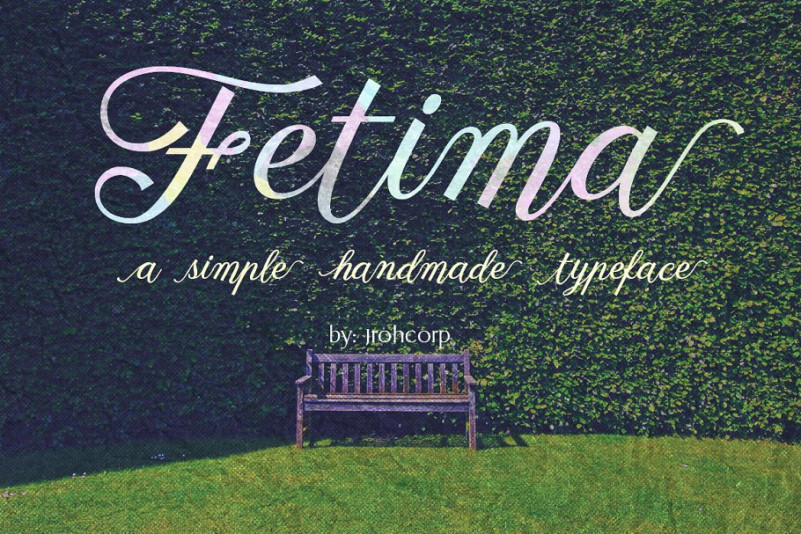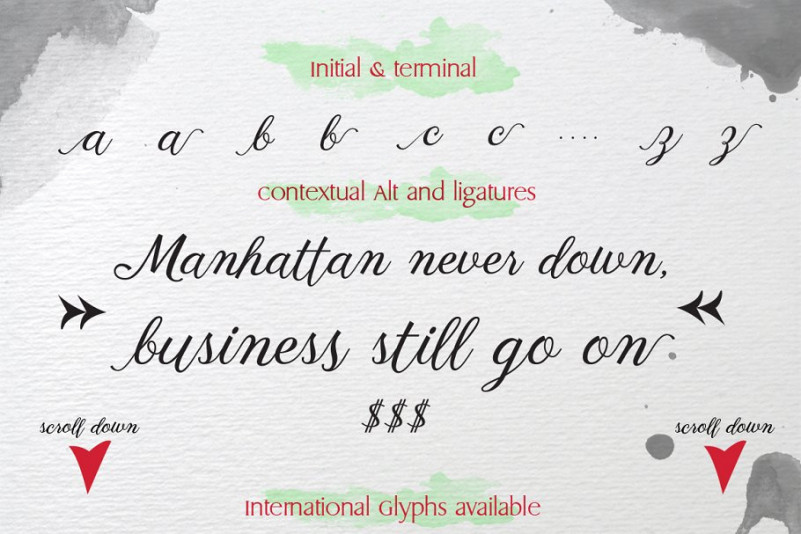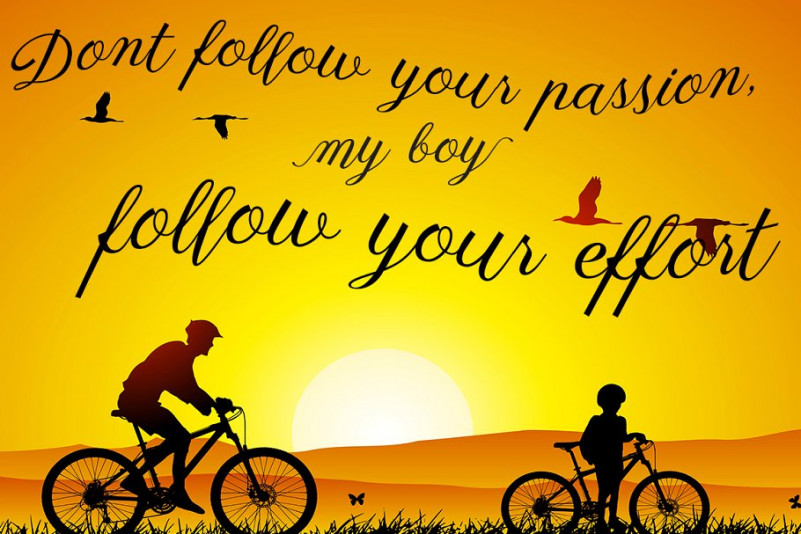
Fetima Script Font
Hi….. This is my first Font product, Fetima is handwritten stylish a simple calligraphy fonts, combines from modern to contemporary typeface with a dancing baseline, classic and elegant touch. Fetima features 284 glyphs. including initial and terminal letters, contextual alt, ligatures and multiple language support. Files included: